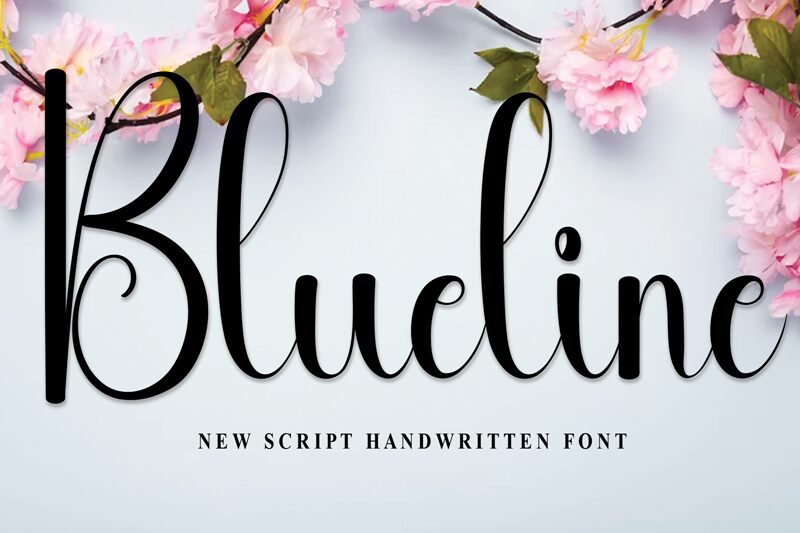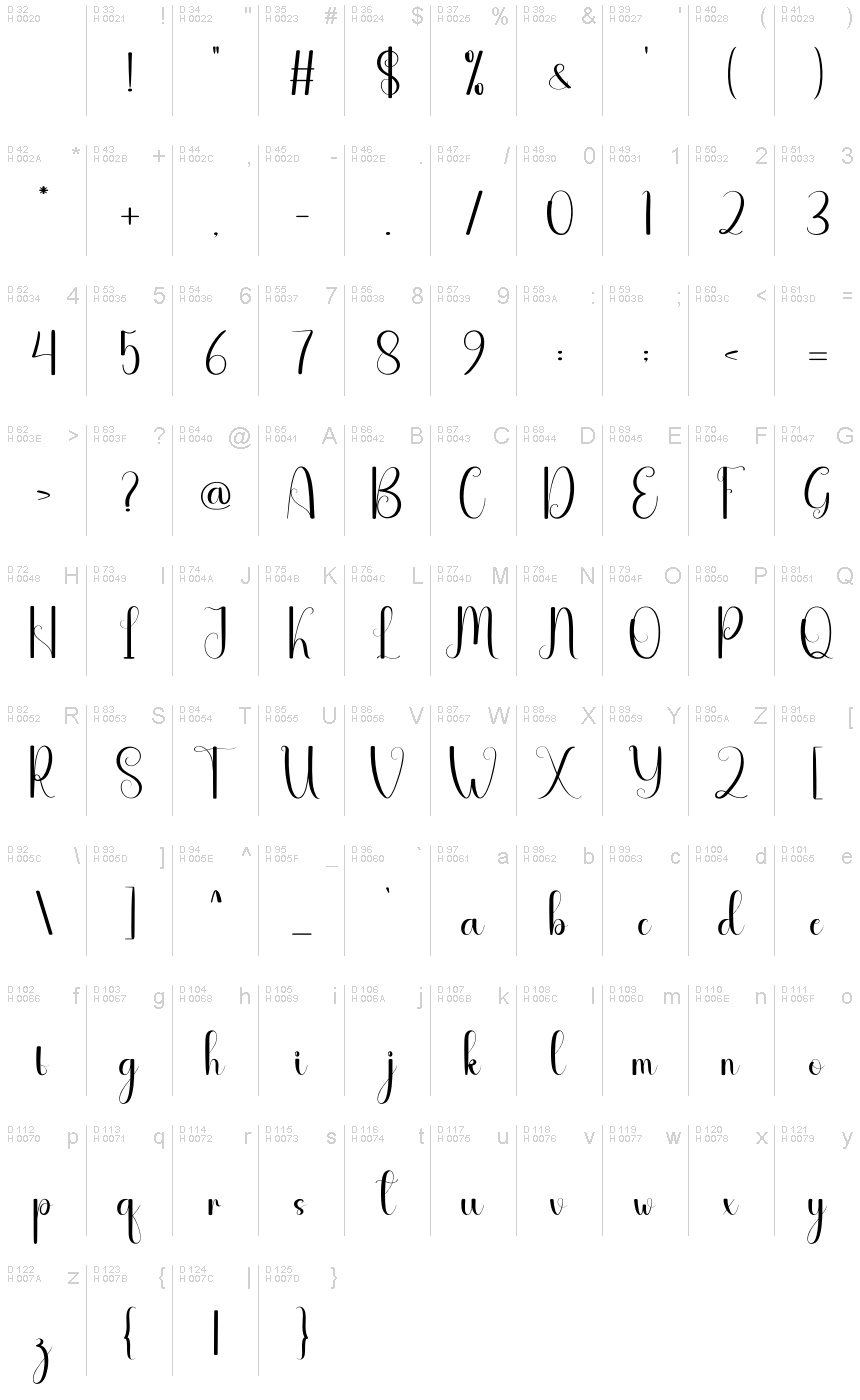
Blueline
Blueline, a captivating calligraphy font crafted by Andi Moz, exudes a sweet and friendly essence. This handwritten display font boasts a playful, organic elegance that immediately captures the eye. Flowing, expressive strokes merge seamlessly, creating a delightful visual harmony that evokes feelings of warmth and charm.
Blueline's unique character lends itself beautifully to a variety of design applications, from sentimental wedding invitations to whimsical greeting cards. Its playful, yet refined aesthetic makes it an ideal choice for projects seeking a touch of personality and charm, adding a personalized touch that is sure to captivate audiences.